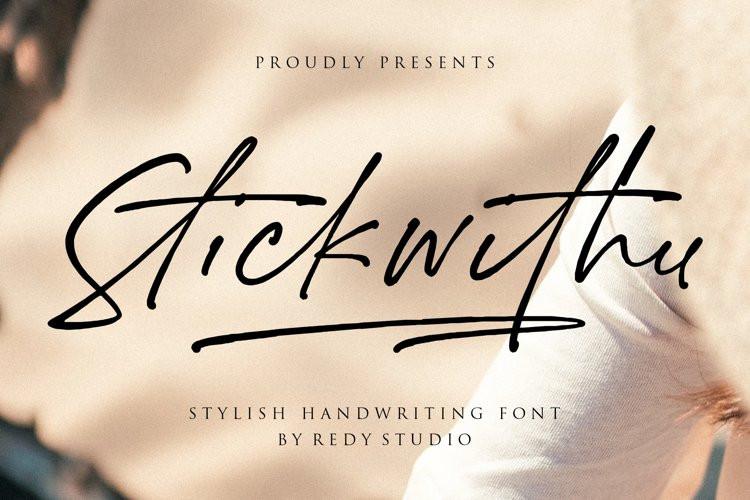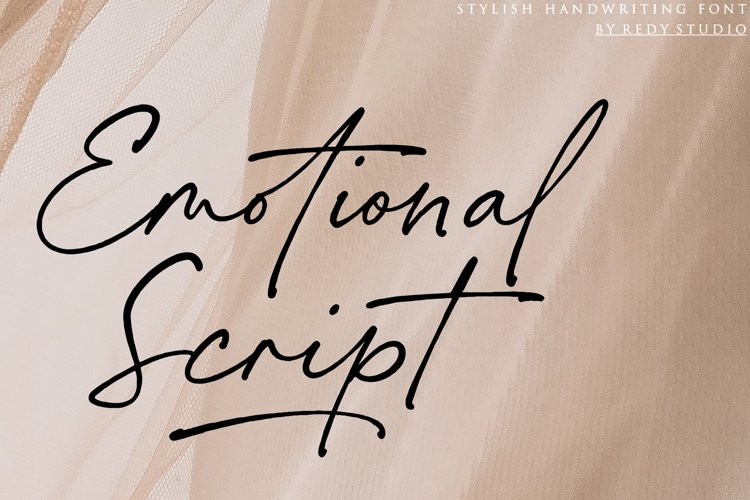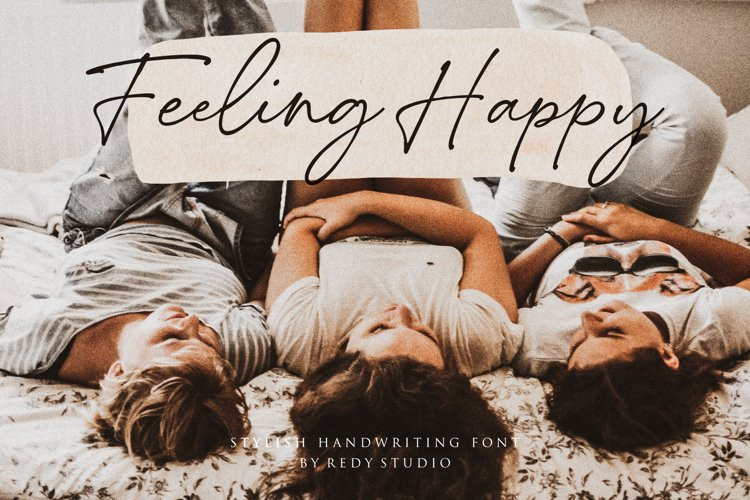
Stickwithu Font
Stickwithu was inspired by the title song stickwitu sung by The Pussycat Dolls which was very popular in the early 2000s. The creation of this font was based on the needs of script font users to help create beautiful sentences. A little chic, a little classy, ​​Stickwithu is a must-have for any handwritten font collection. Perfect for: logo creation, elegant branding, wedding stationery, classy packaging, album covers, handwritten quotes, greeting cards, unique social media posts, and more